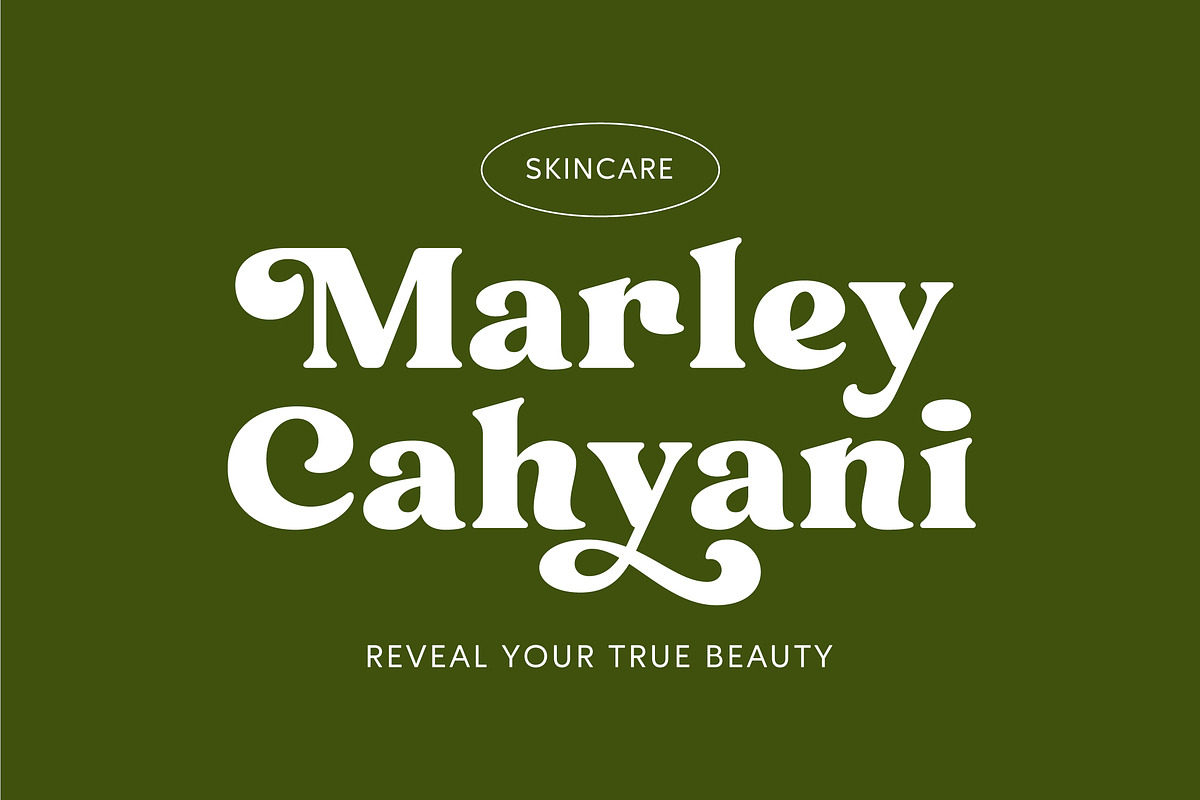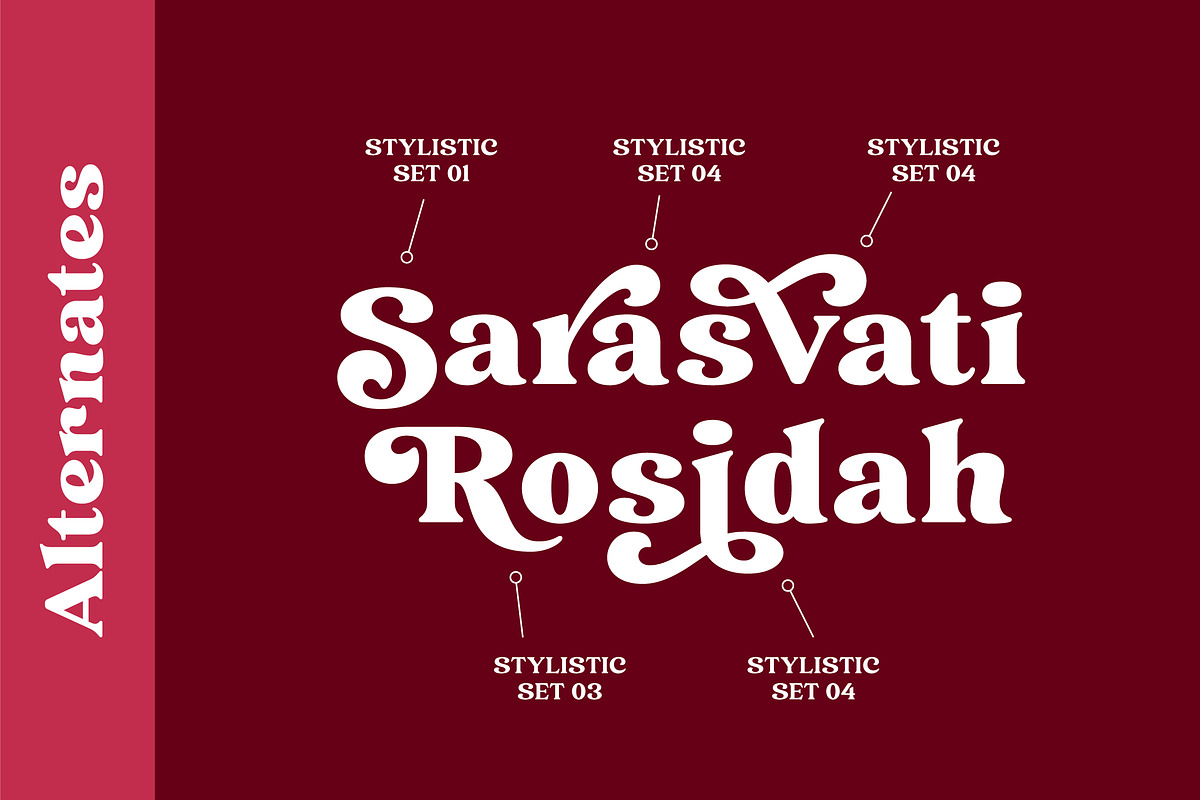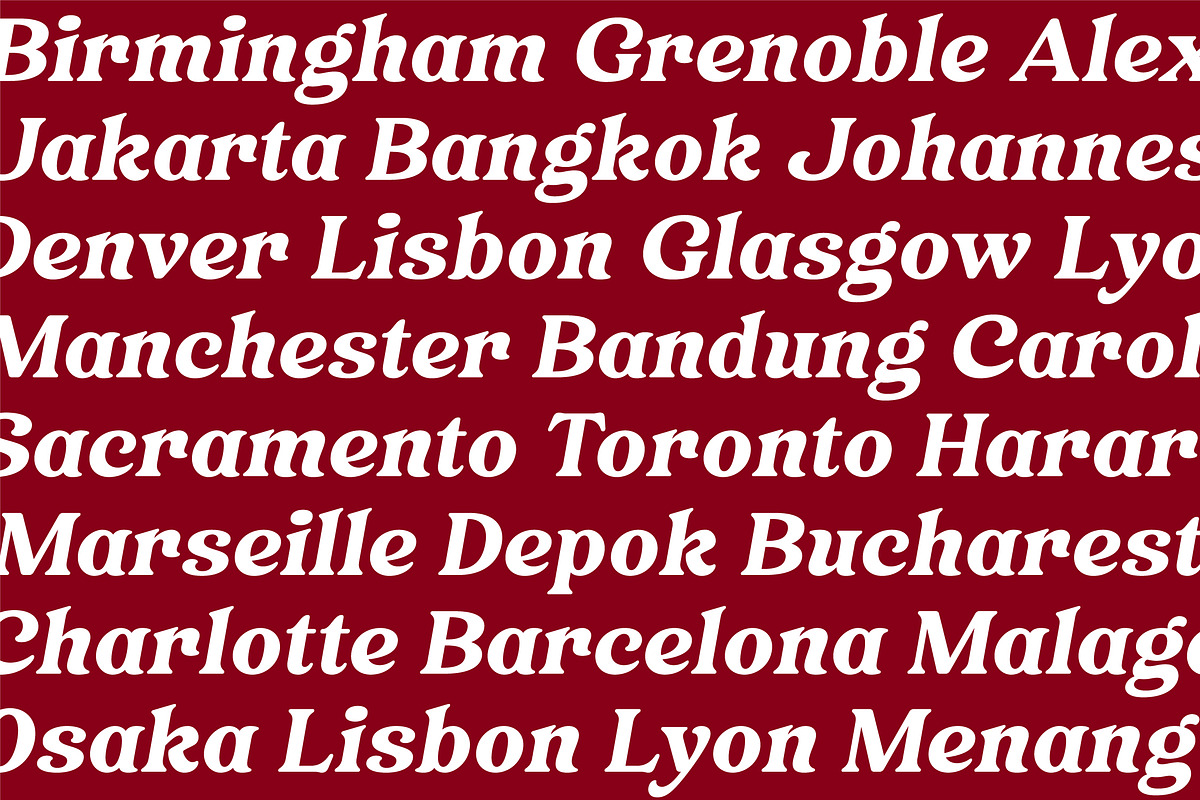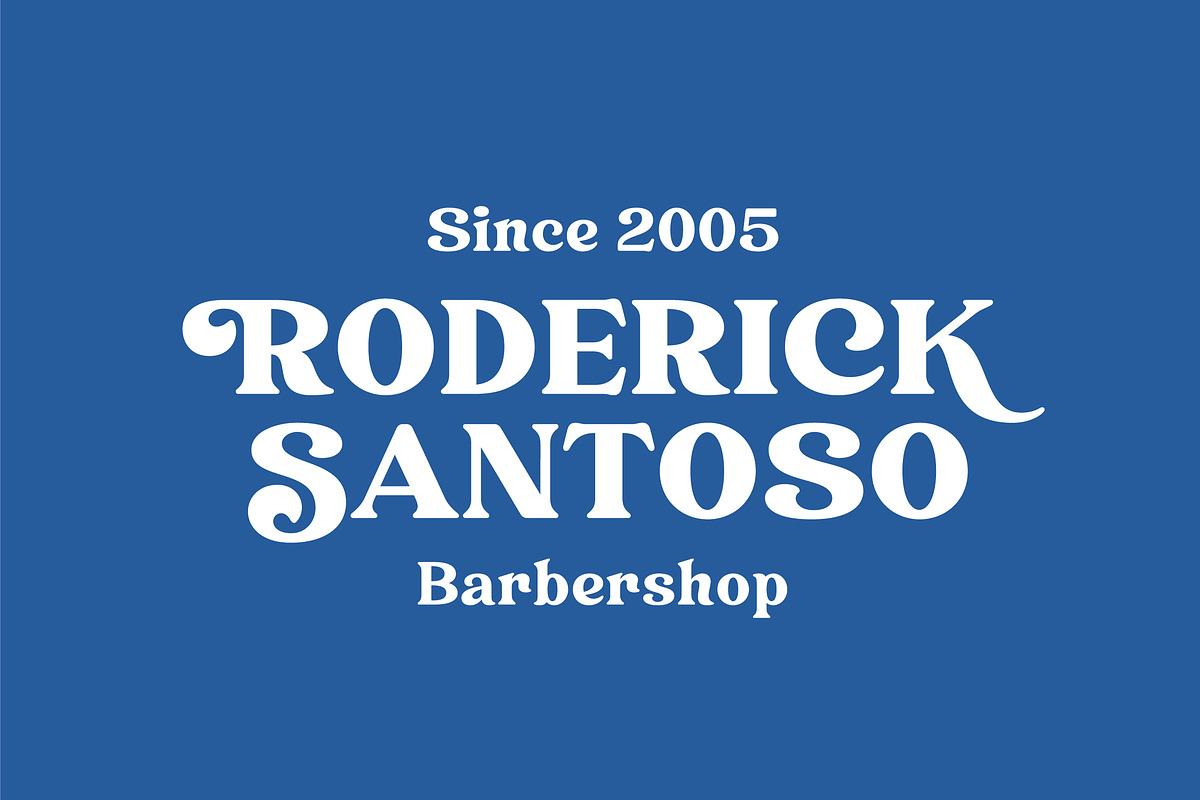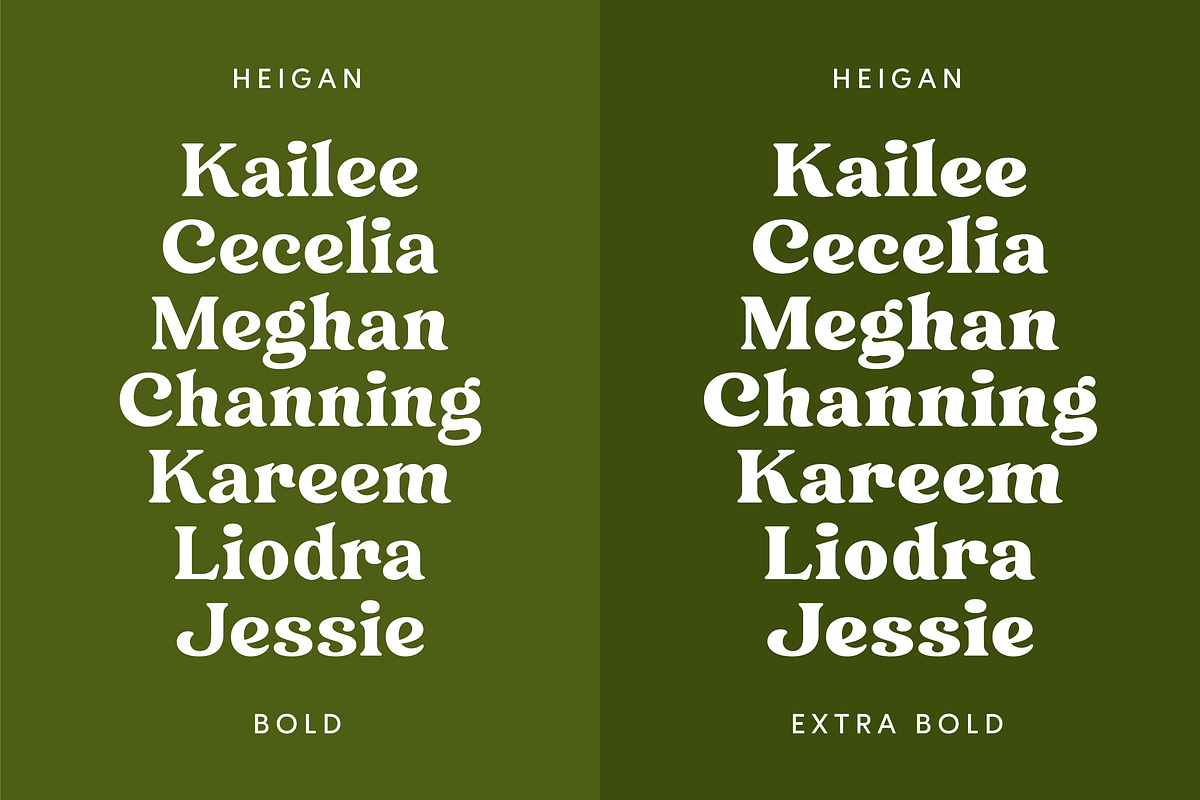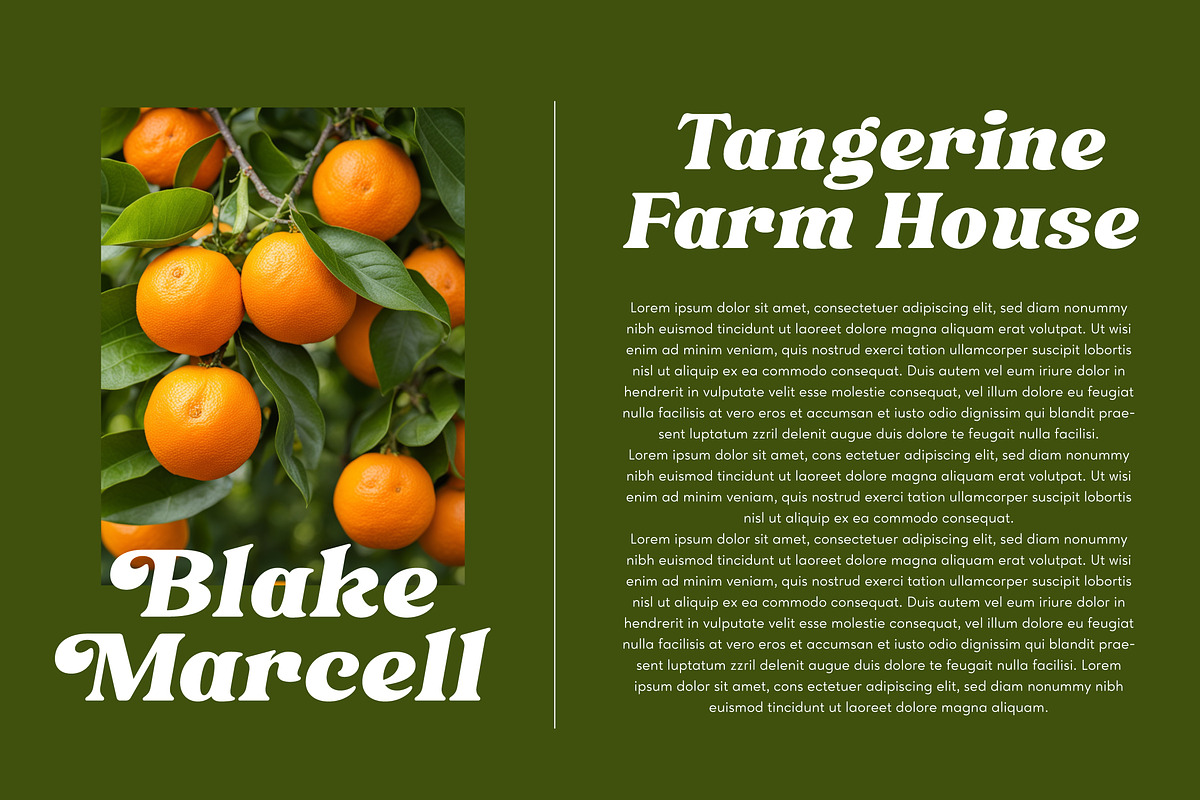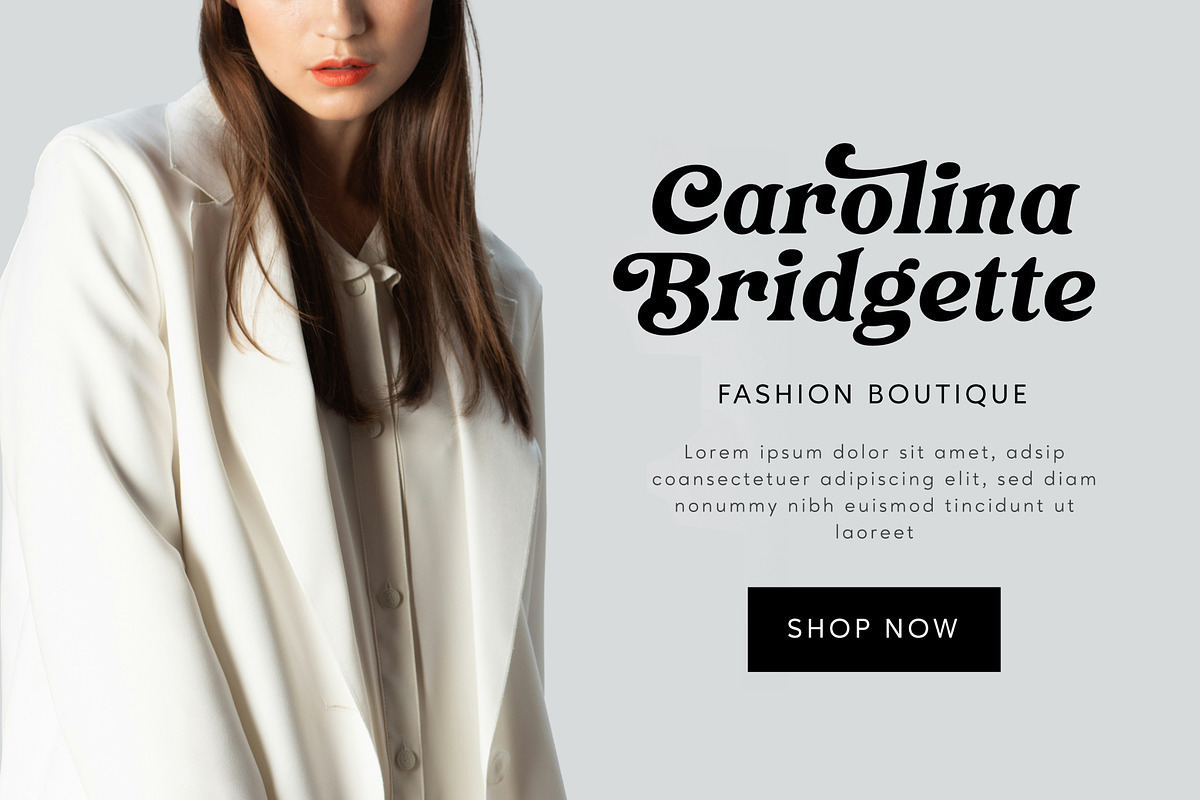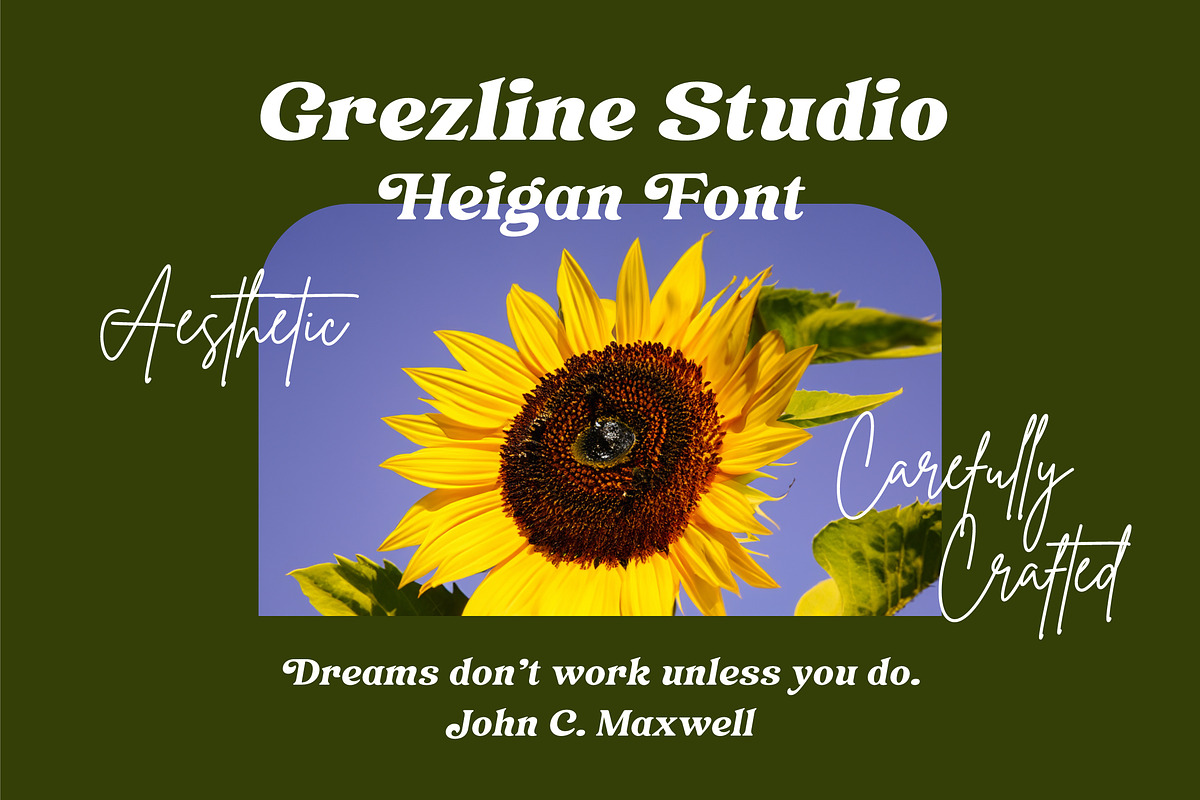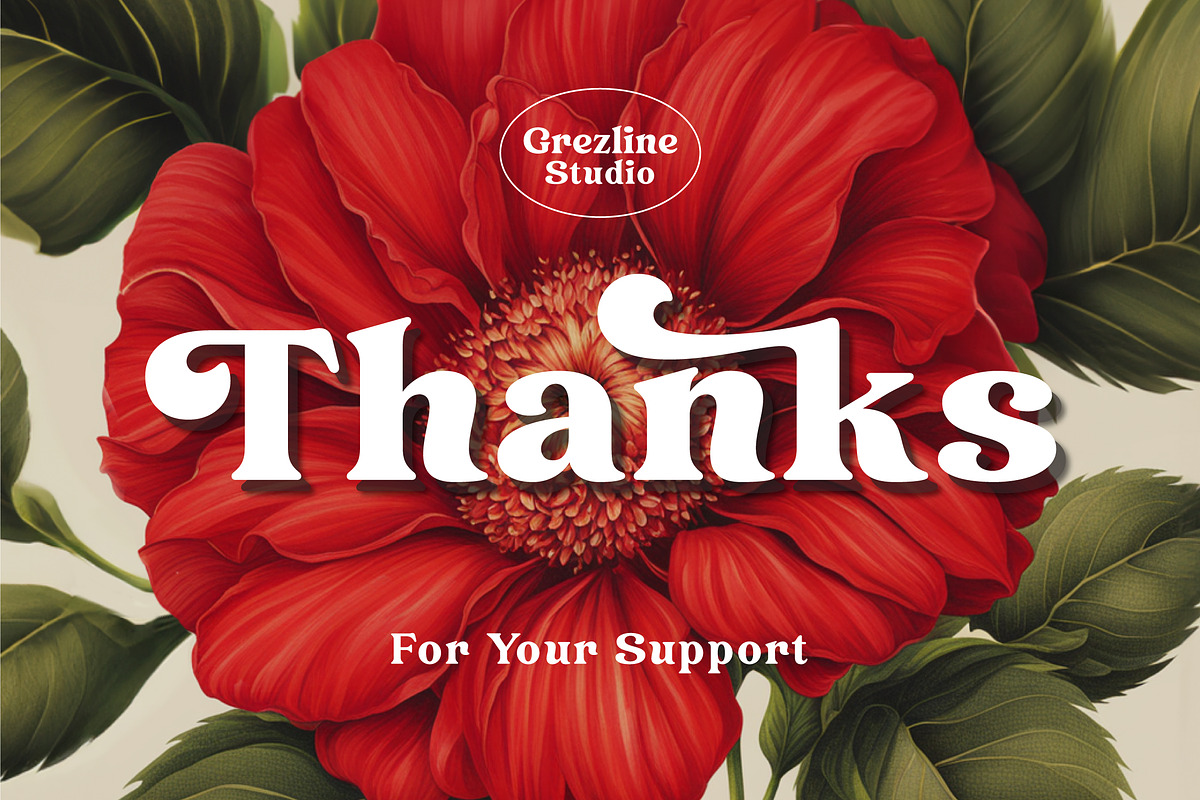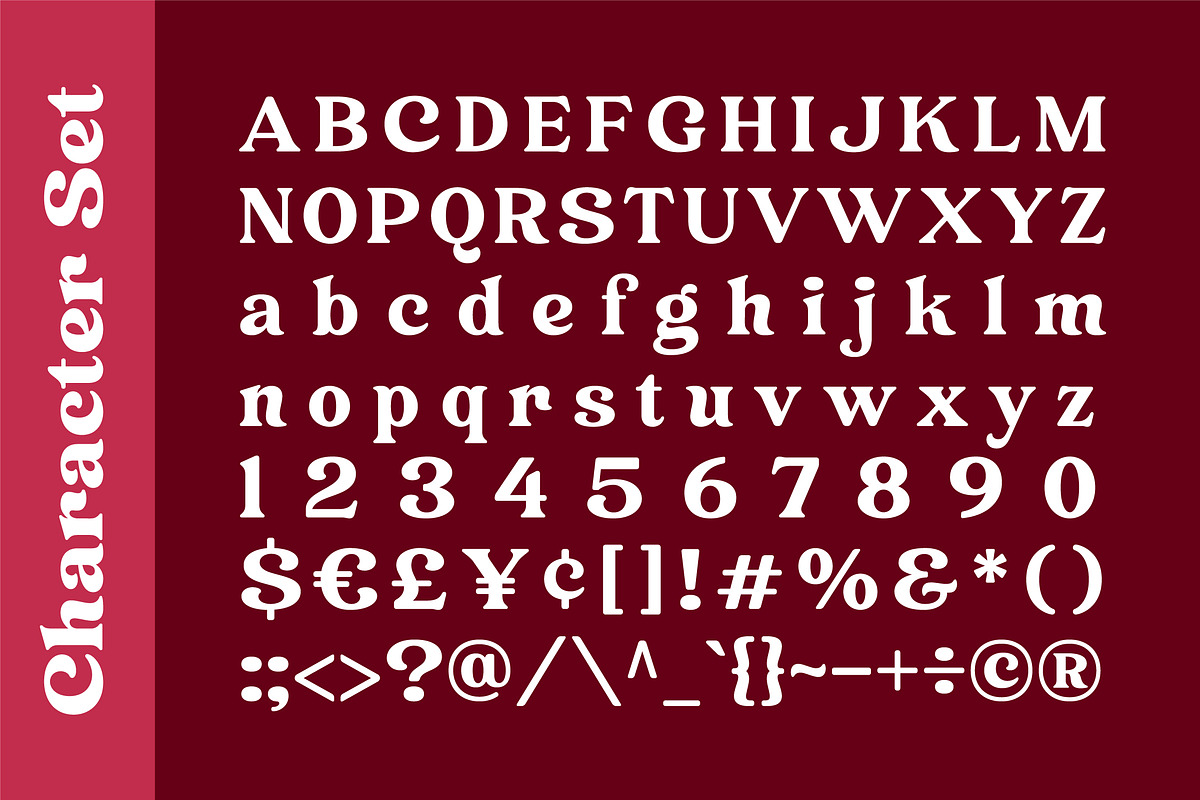
Heigan - Retro Font Family
Heigan is a bold retro font family that brings a taste of vintage charm to your designs. Its strong and distinctive letterforms drive a sense of timeless elegance while adding a playful and cheerful looks. Heigan font is usable in wide range of work such as logos, headers, headlines, posters. This font is PUA encoded, which means you can access all of the glyphs and swashes with ease!
Ligature & Alternate glyphs
Multilingual Language